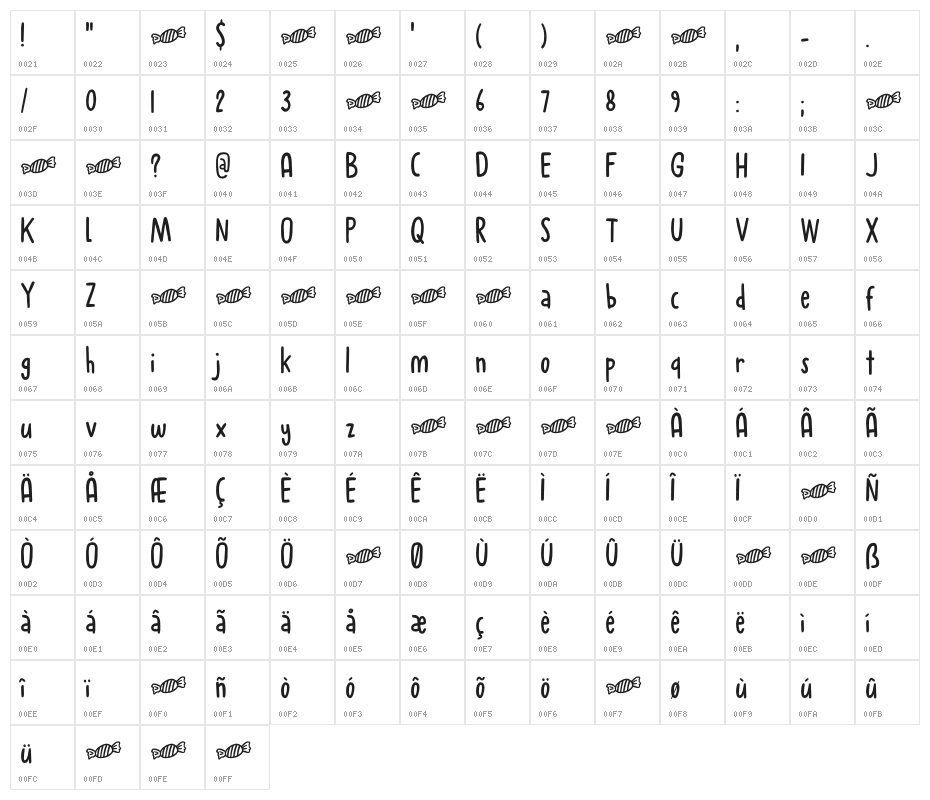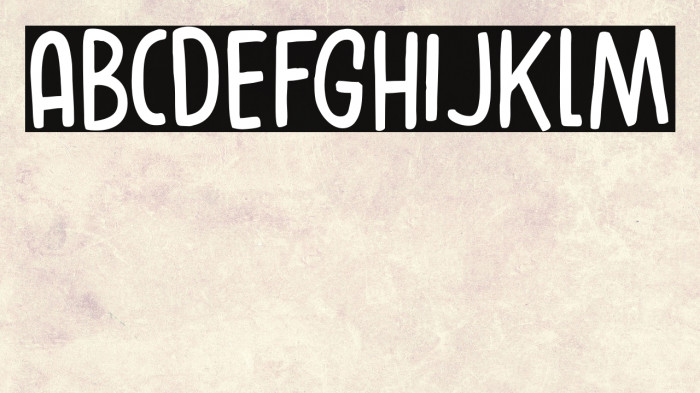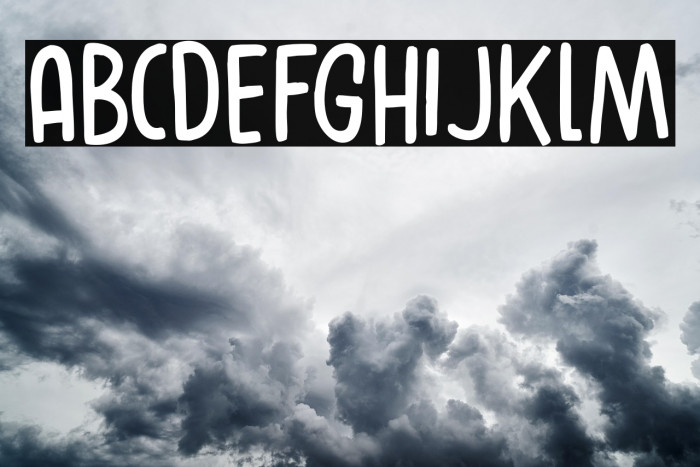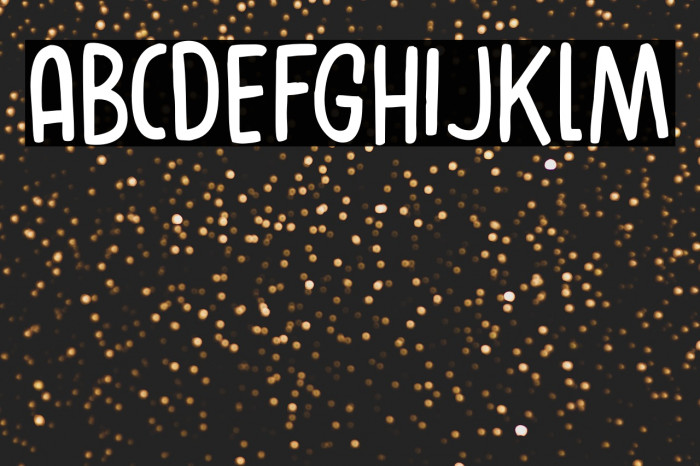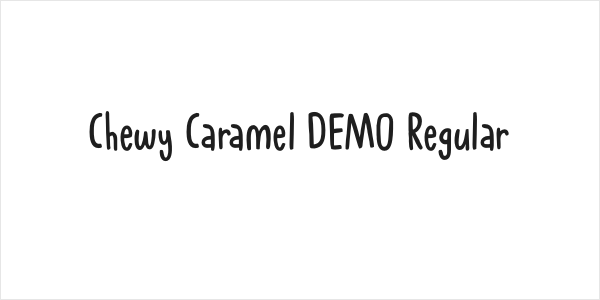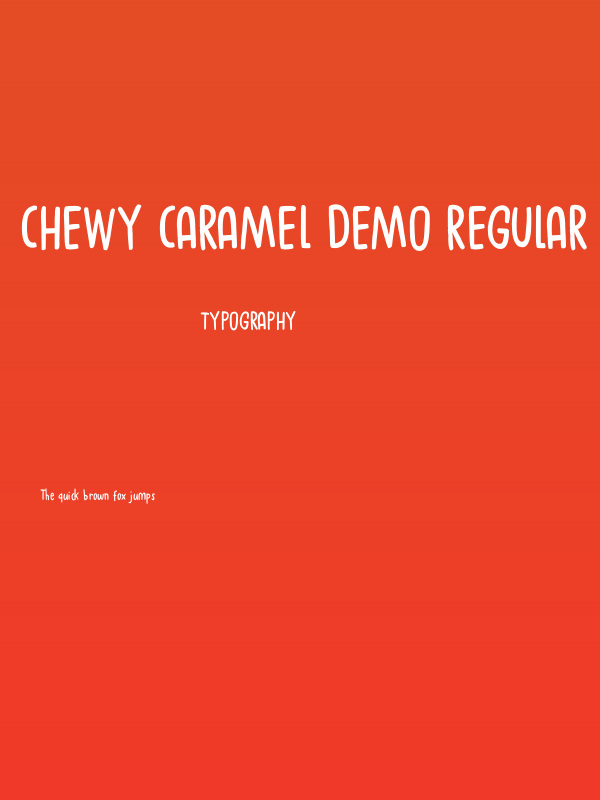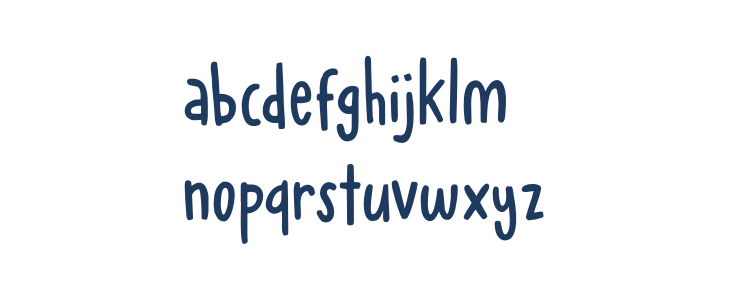
Chewy Caramel DEMO Regular Font
Chewy Caramel DEMO Regular Description
This playful and whimsical font features a hand-drawn style with rounded edges and a slightly irregular baseline, giving it a friendly and approachable appearance. The characters are bold and have a consistent stroke width, which enhances readability while maintaining a casual and informal vibe. The inclusion of candy-themed glyphs adds a unique and fun element, making it suitable for creative and lighthearted projects. The font's overall design is reminiscent of handwritten notes or doodles, perfect for adding a personal touch to any design.